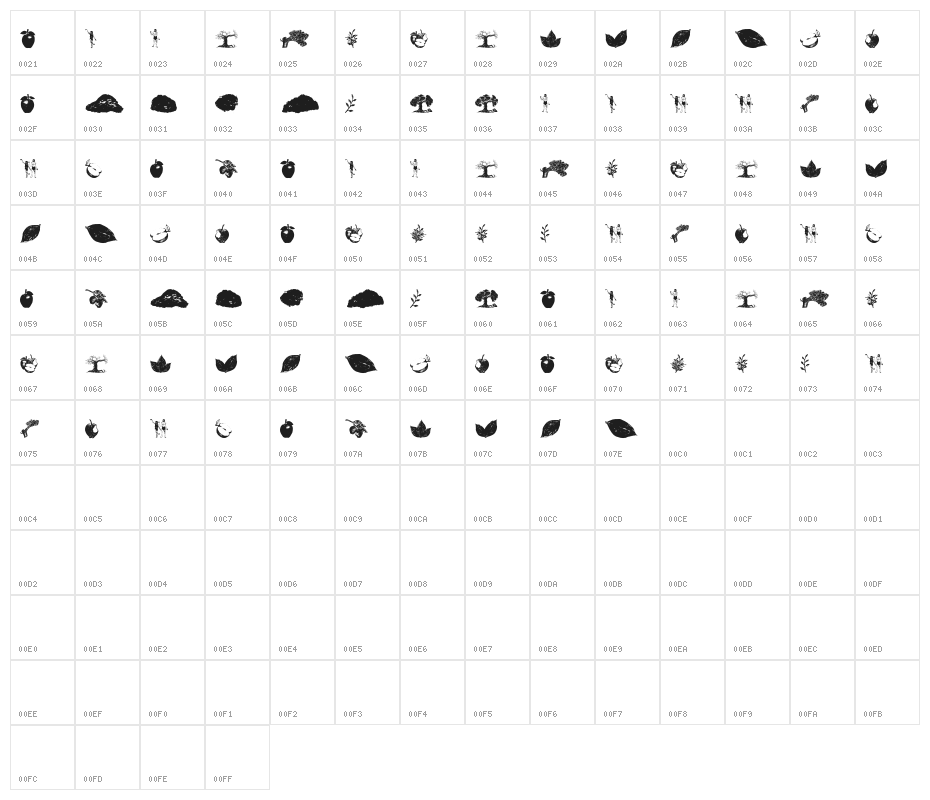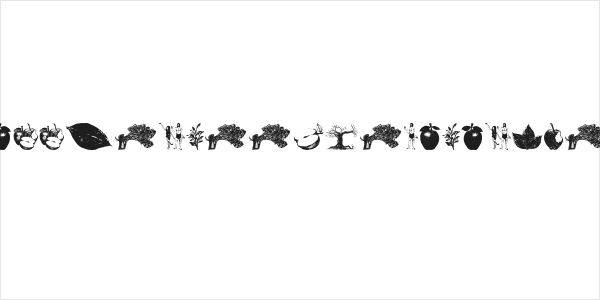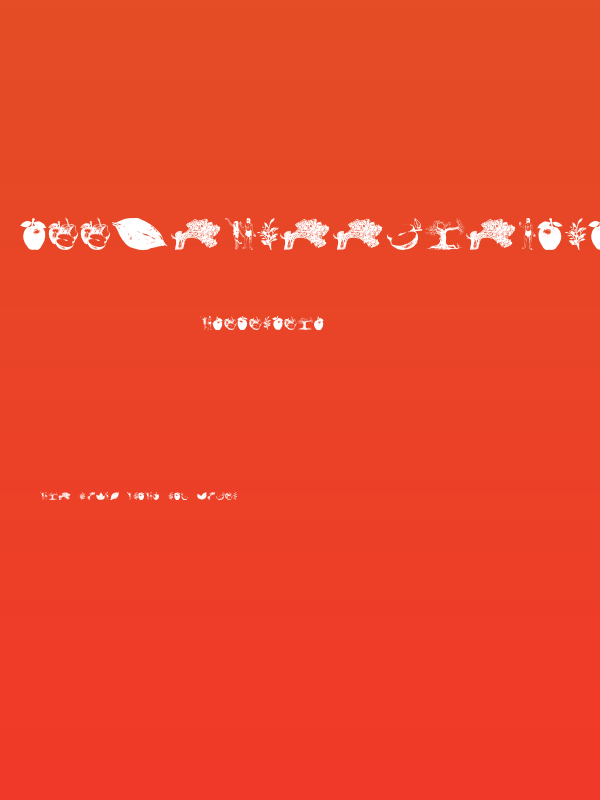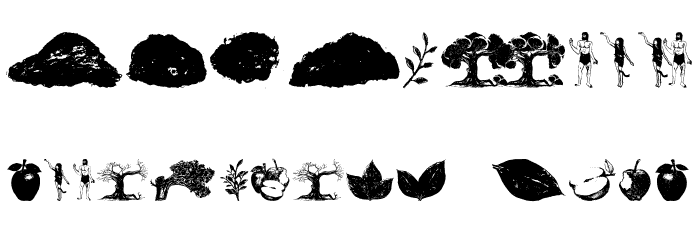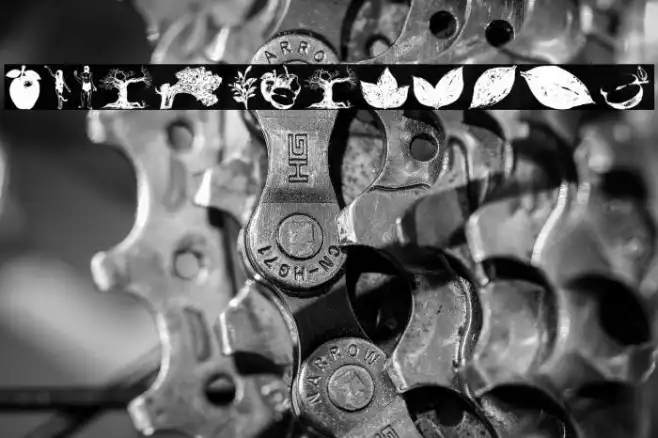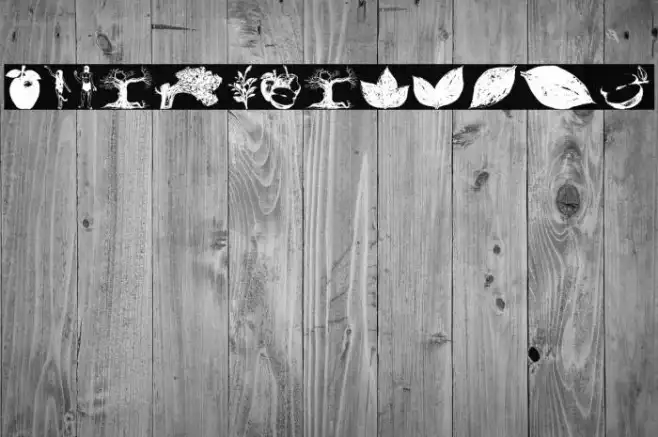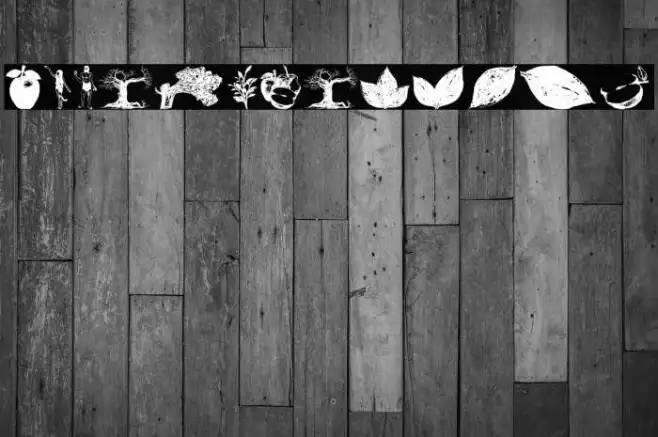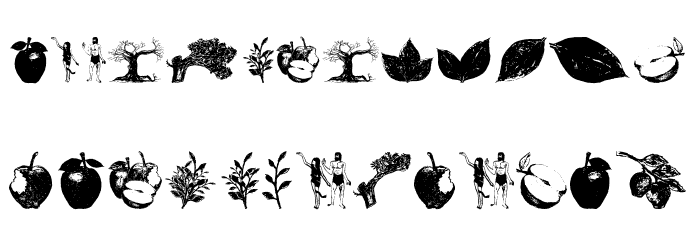
AppleTree-Decorative Font
AppleTree-Decorative Description
This decorative font features a series of intricate illustrations rather than traditional alphanumeric characters. Each character is represented by detailed images of apples, trees, leaves, and figures, creating a whimsical and nature-inspired theme. The design is highly detailed, with a hand-drawn aesthetic that emphasizes organic forms and textures. The font is more of a collection of artistic symbols rather than a conventional typeface, making it ideal for creative projects that require a unique and thematic visual element.
| Font Family | Apple Tree |
| Style | Decorative |
| Use Case | Logos, Decorative elements, Artistic projects |
| Proposed Projects | Ideal for nature-themed designs, artistic projects, or decorative elements in invitations and posters. |